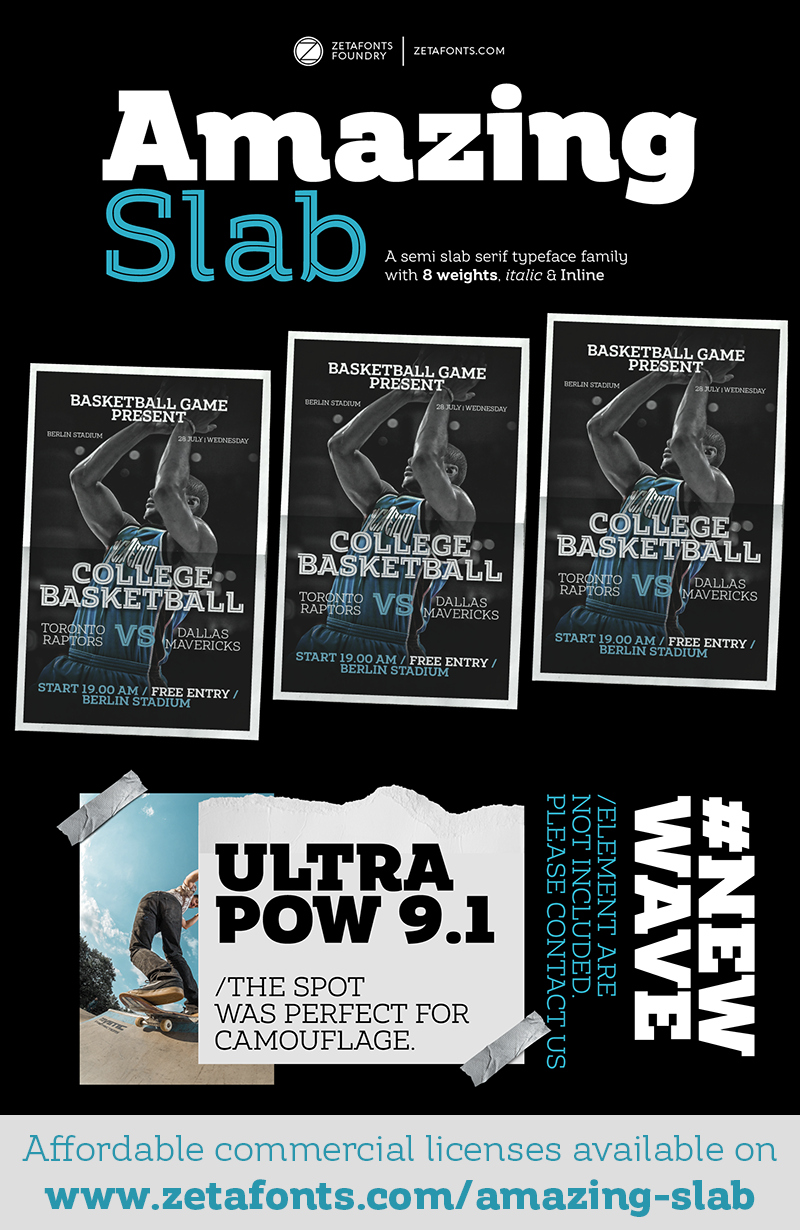
Amazing Slab
Amazing Slab is a font family conceived by Francesco Canovaro and Andrea Tartarelli as an extension of the Amazing Grotesk family originally crafted by Cosimo Lorenzo Pancini. This typeface merges the stately attributes of an Egyptian serif with a low-contrast aesthetic, incorporating the graceful curves and open forms of humanist sans grotesques. Its creation was driven by a desire to capture the dynamic and approachable essence of the startup world—a spirit brimming with innovation, information, and vitality, all while embracing simplicity and direct communication.